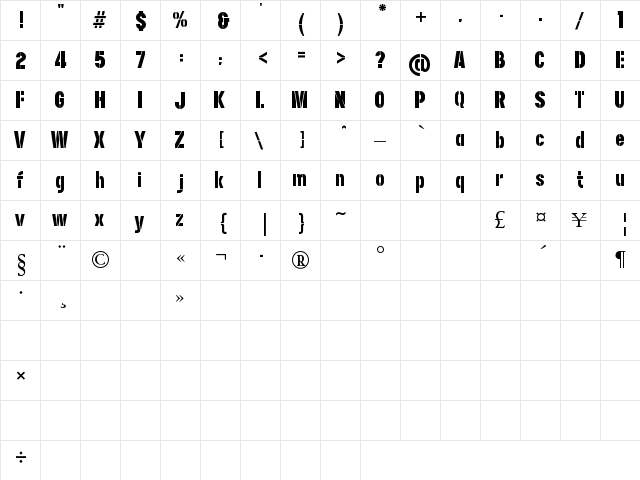
NFL Packers Regular Font Preview
NFL Packers Regular
Design Context for NFL Packers Typeface
NFL Packers takes a measured approach to typography — its balanced proportions and neutral character make it a reliable workhorse for both digital and print work.